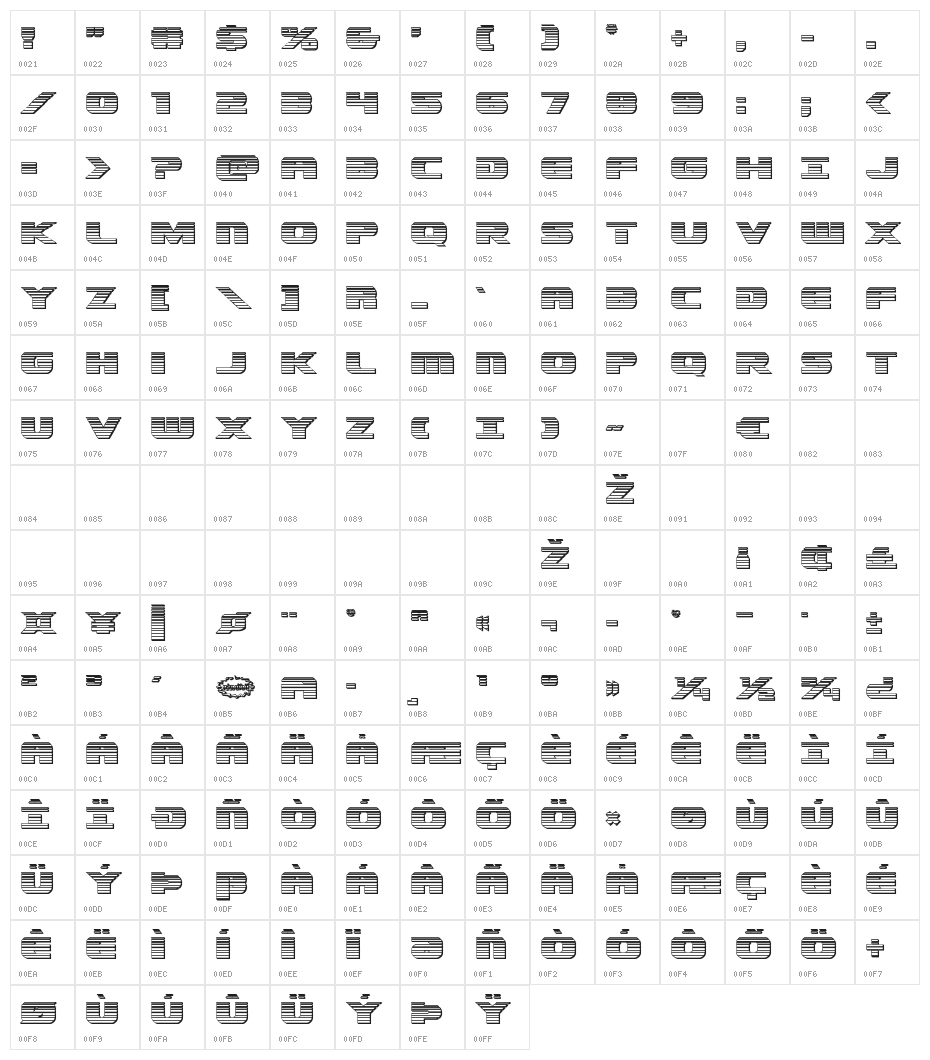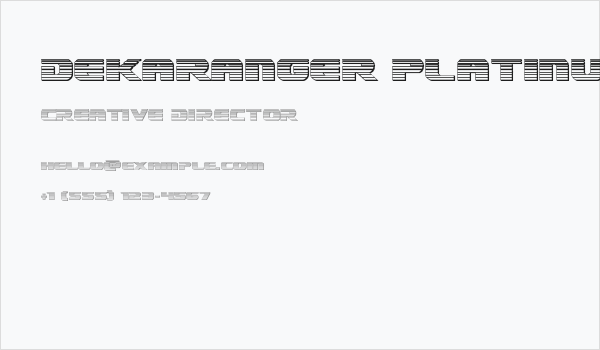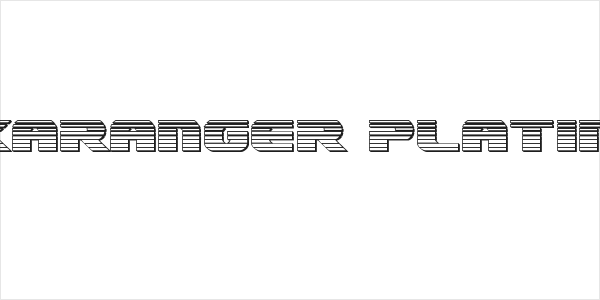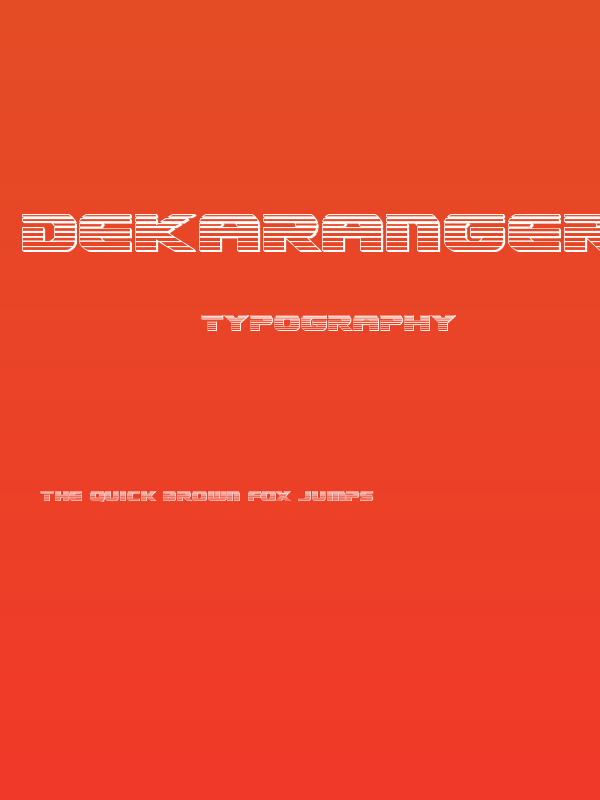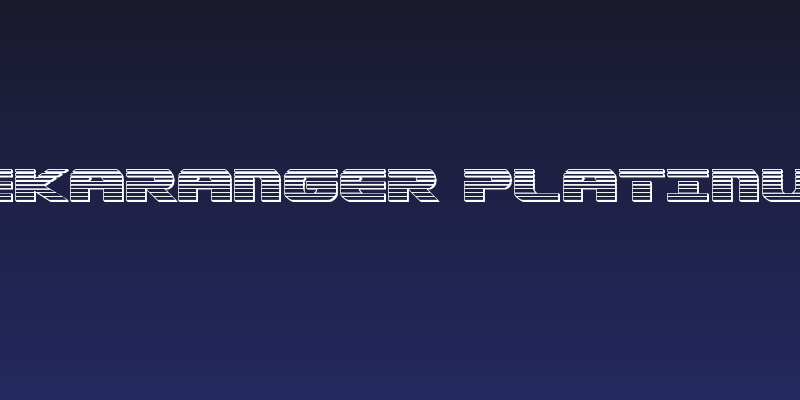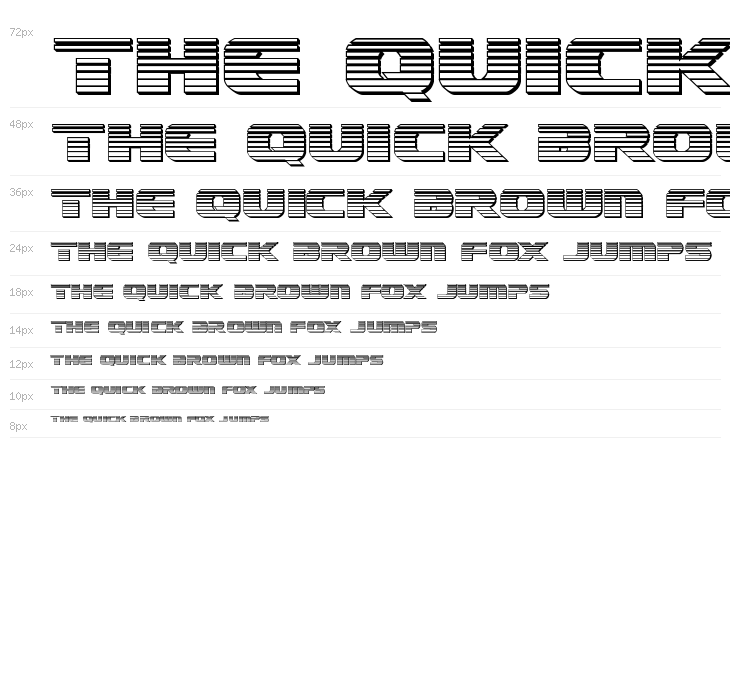
Dekaranger Platinum Font
Dekaranger Platinum Description
This font features a futuristic and geometric design with a distinct striped pattern running horizontally across each character. The bold, angular shapes give it a strong, dynamic presence, making it ideal for attention-grabbing designs. The uppercase and lowercase letters maintain a consistent style, with the stripes adding a sense of movement and energy. The numerals and special characters are equally stylized, ensuring a cohesive look across all text elements. The font's unique aesthetic makes it suitable for projects that require a modern and edgy feel.
Overall StyleFuturistic, Modern
Proposed ProjectsIdeal for sci-fi themed posters, video game titles, tech branding, and futuristic event flyers.